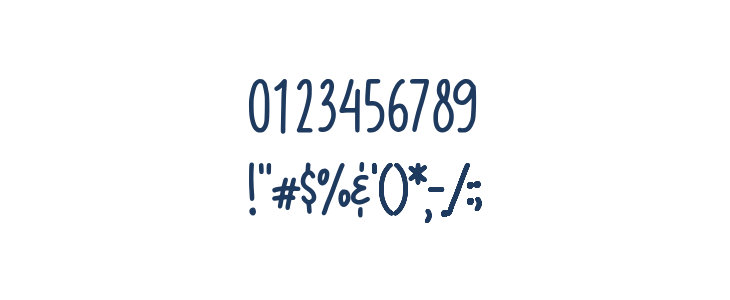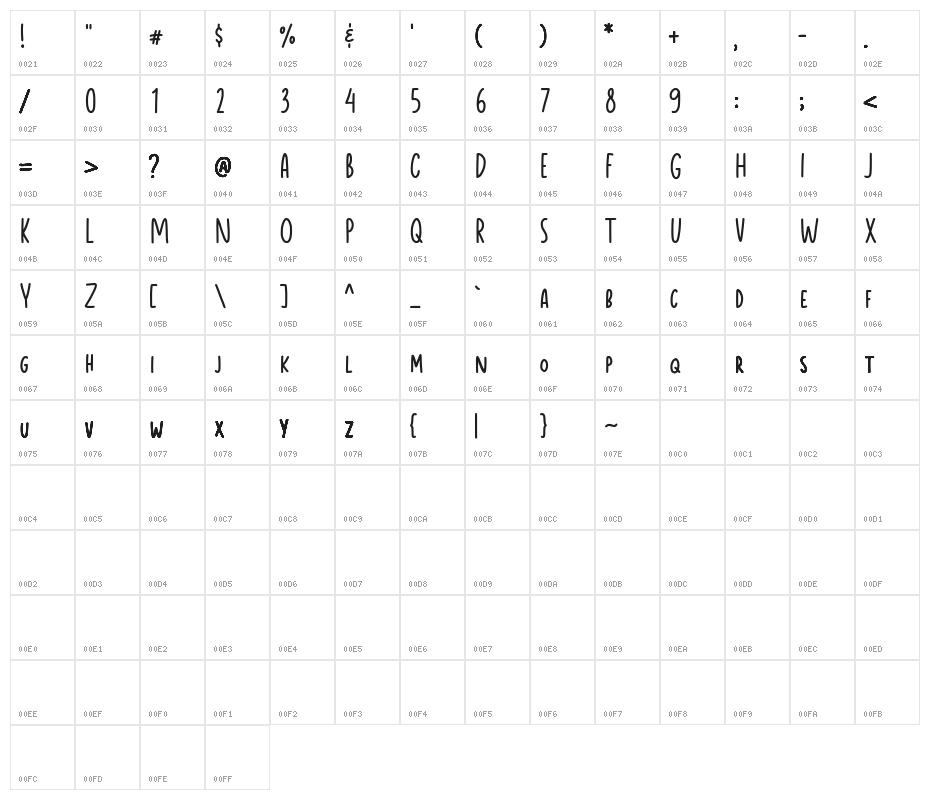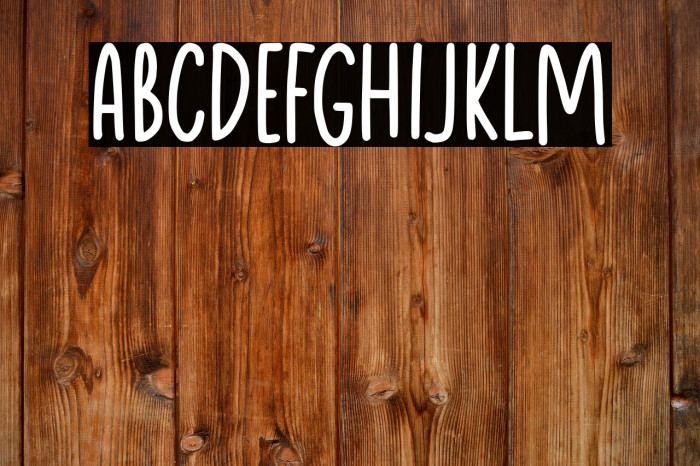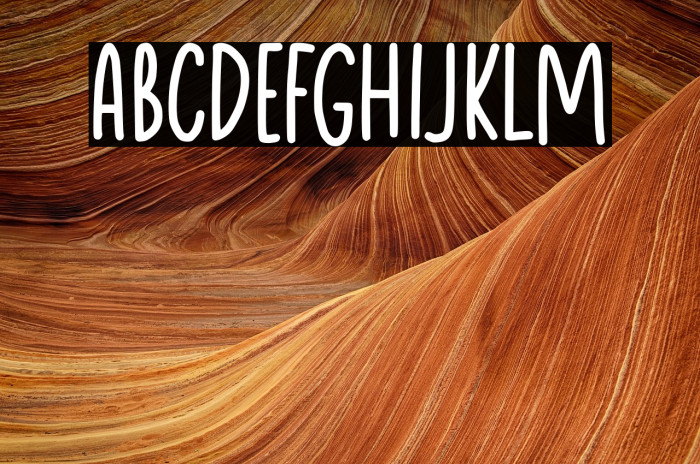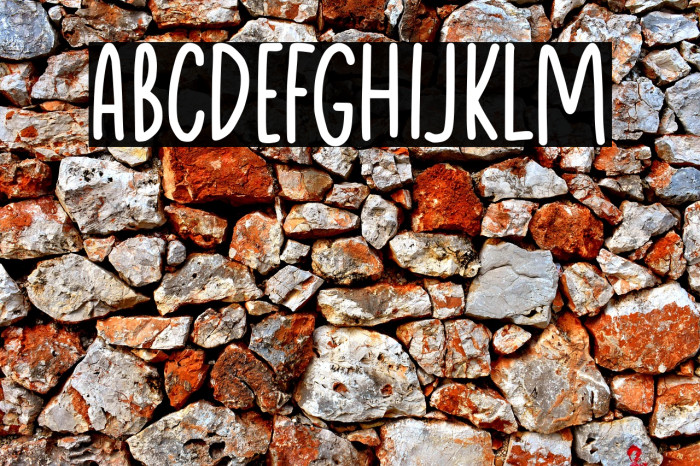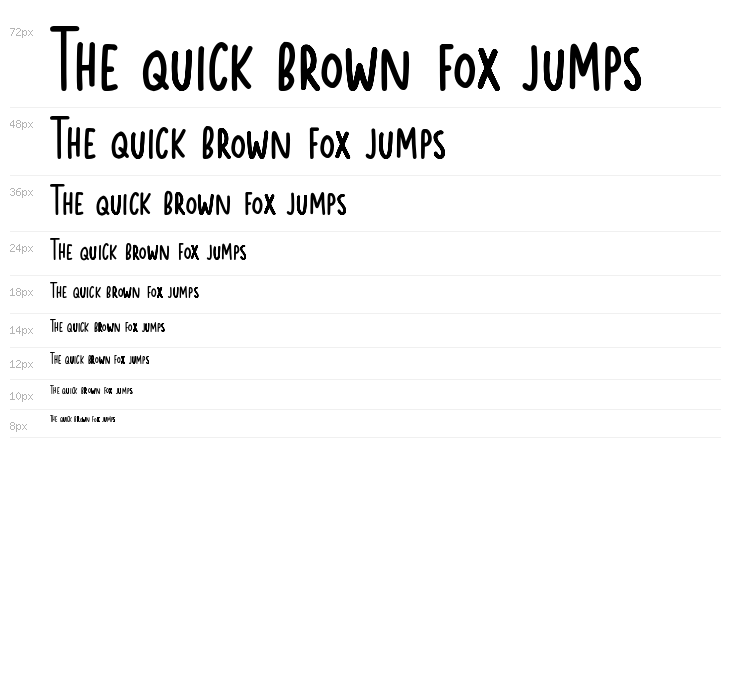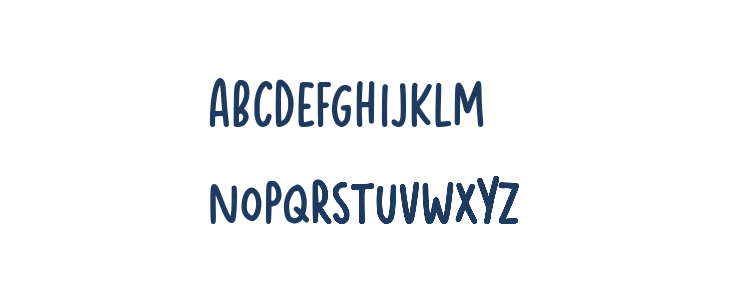
Brandy Coffee Demo Font
This font features a playful and casual handwritten style, characterized by its rounded edges and slightly irregular letterforms. The uppercase letters are bold and prominent, while the lowercase letters maintain a consistent flow, adding a touch of whimsy. The numerals are clear and easy to read, complementing the overall friendly aesthetic. Special characters are included, enhancing its versatility for various design needs. The font's informal nature makes it suitable for projects that require a personal touch, such as invitations, greeting cards, or playful branding.
Overall StyleCasual
Use CaseHeadlines, Logos, Invitations
Proposed ProjectsIdeal for invitations, greeting cards, playful branding, and casual design projects.